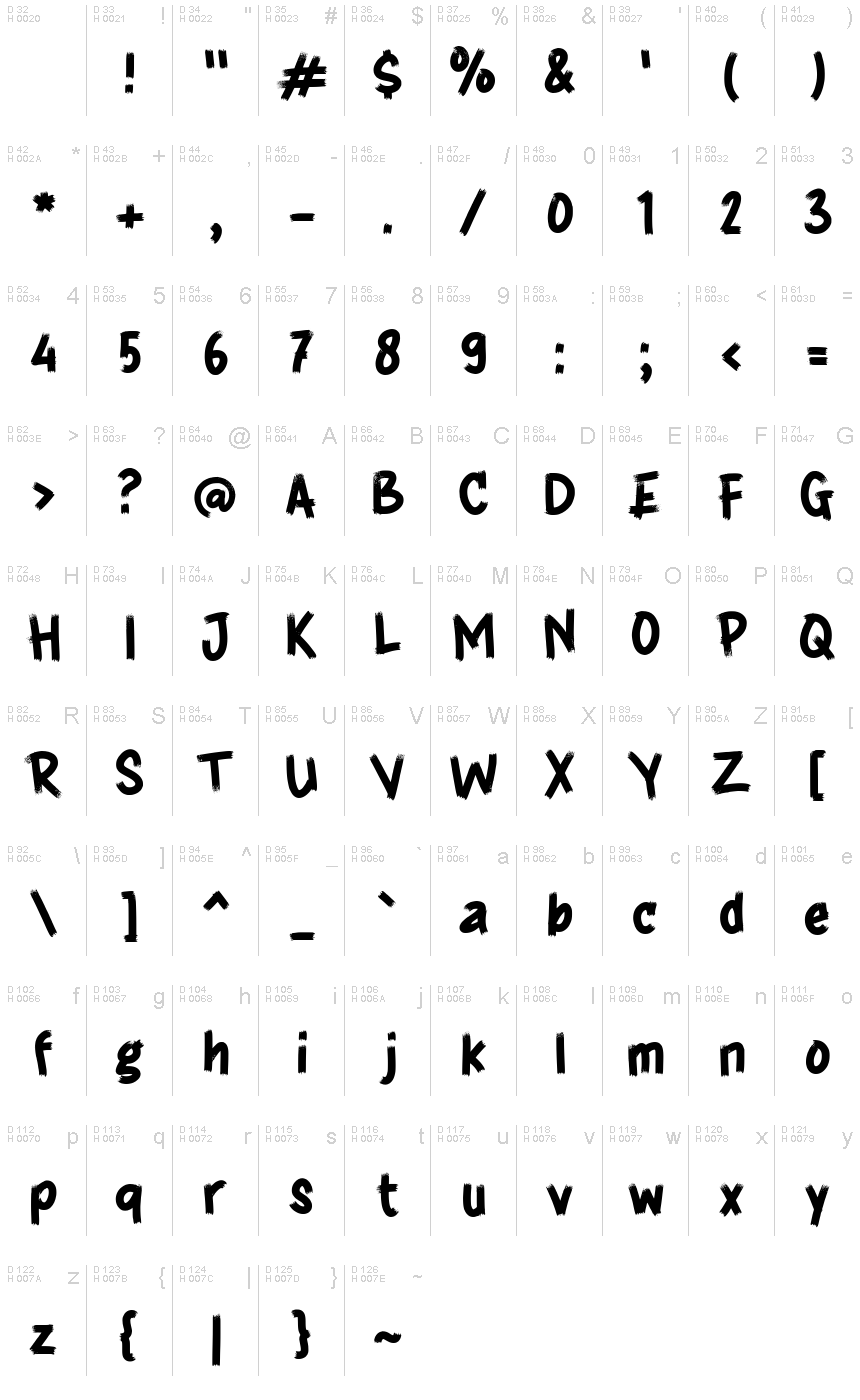
Grest
The Grest font exudes an alluring, hand-crafted essence that immediately captivates the viewer. Designed with a bold, sweeping brush stroke, this font effortlessly blends a sense of raw energy and refined elegance. Its distinctive character shapes and organic texture evoke a feeling of authenticity, making it a compelling choice for projects seeking a visually striking and emotive typographic treatment.
Grest's versatility allows it to seamlessly adapt to a wide range of design applications, from bold headlines and impactful branding to expressive editorial layouts. Its dynamic, brush-inspired nature lends itself particularly well to creative endeavors that aim to convey a sense of movement, passion, and artisanal charm.